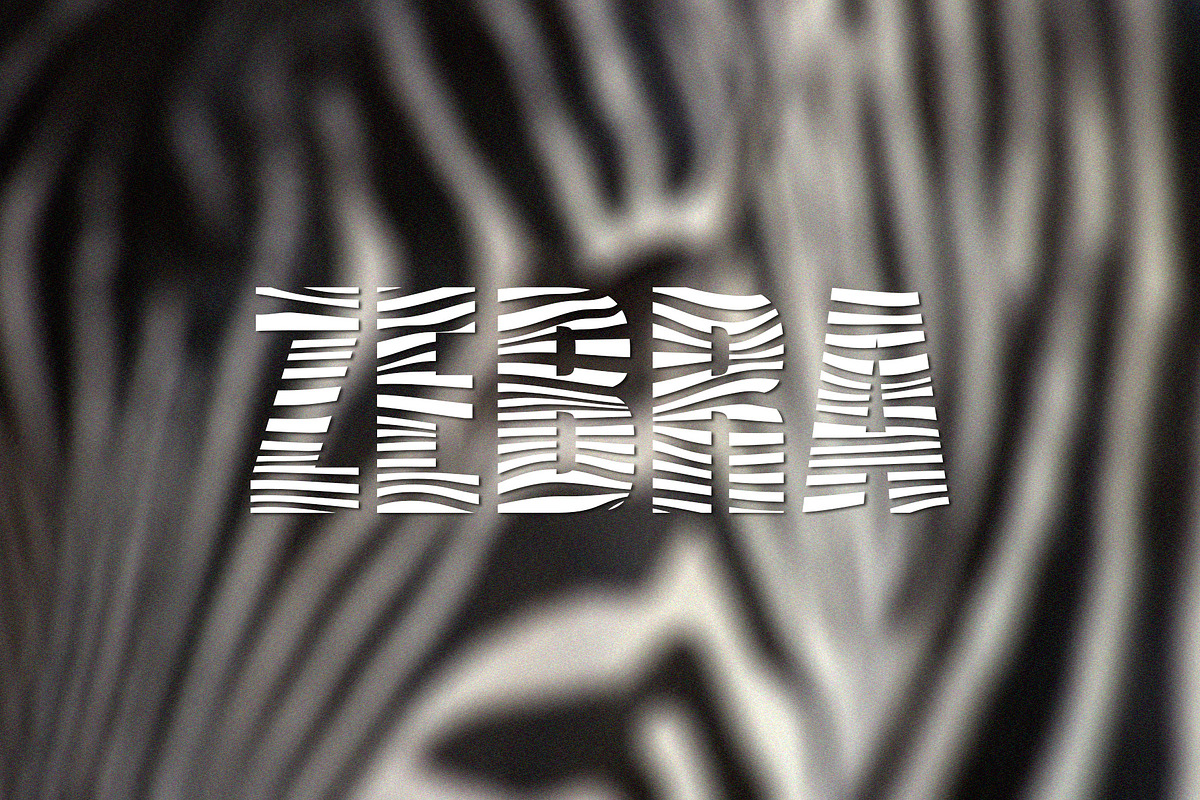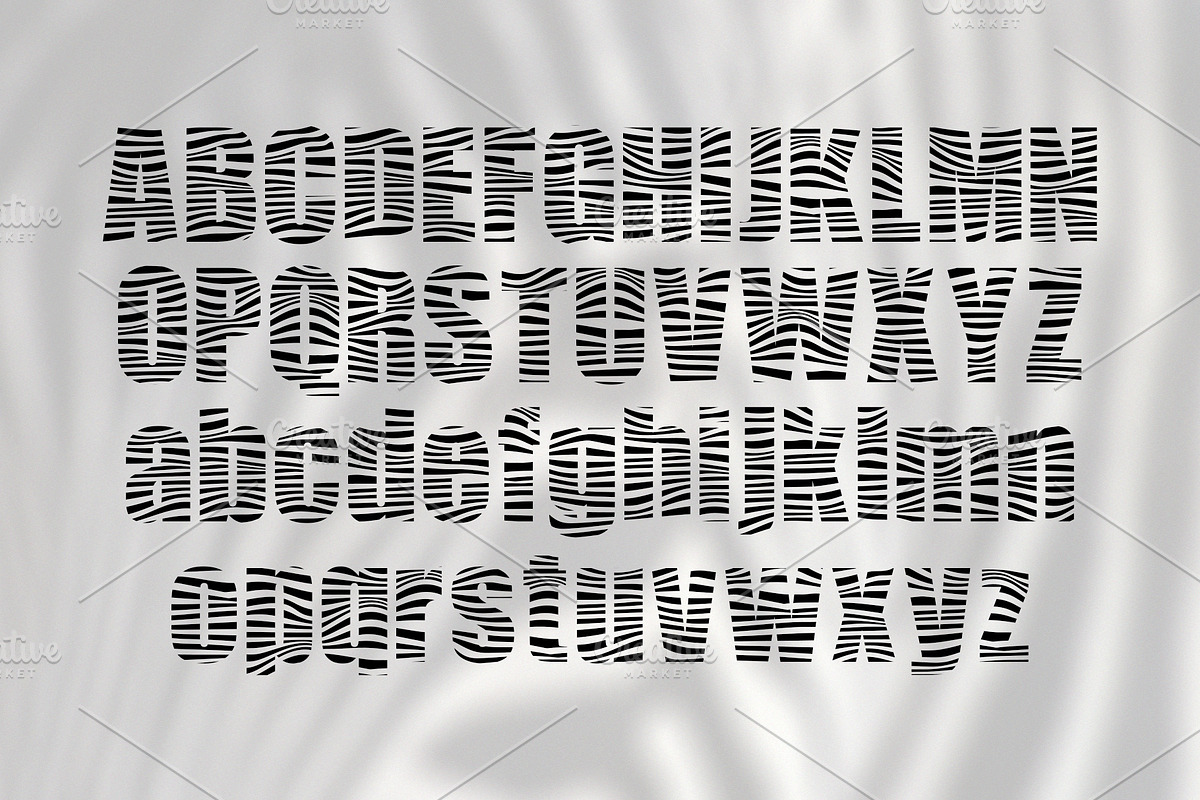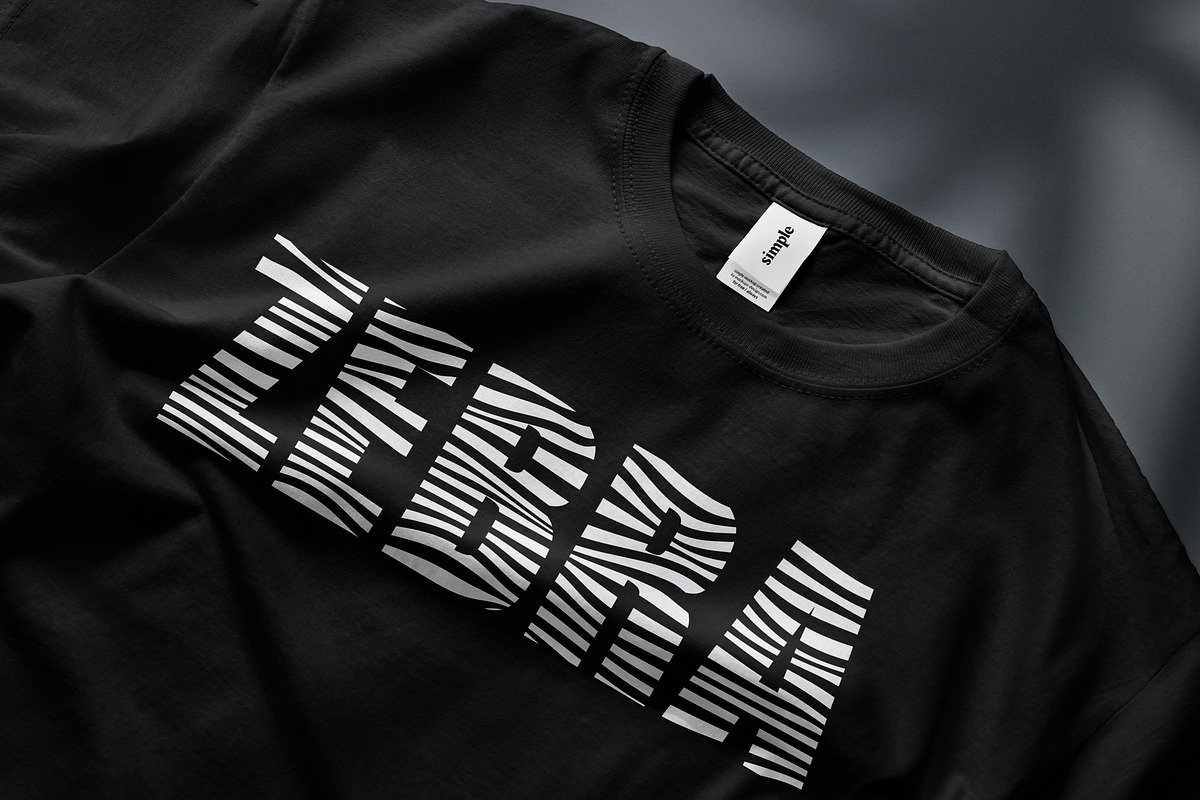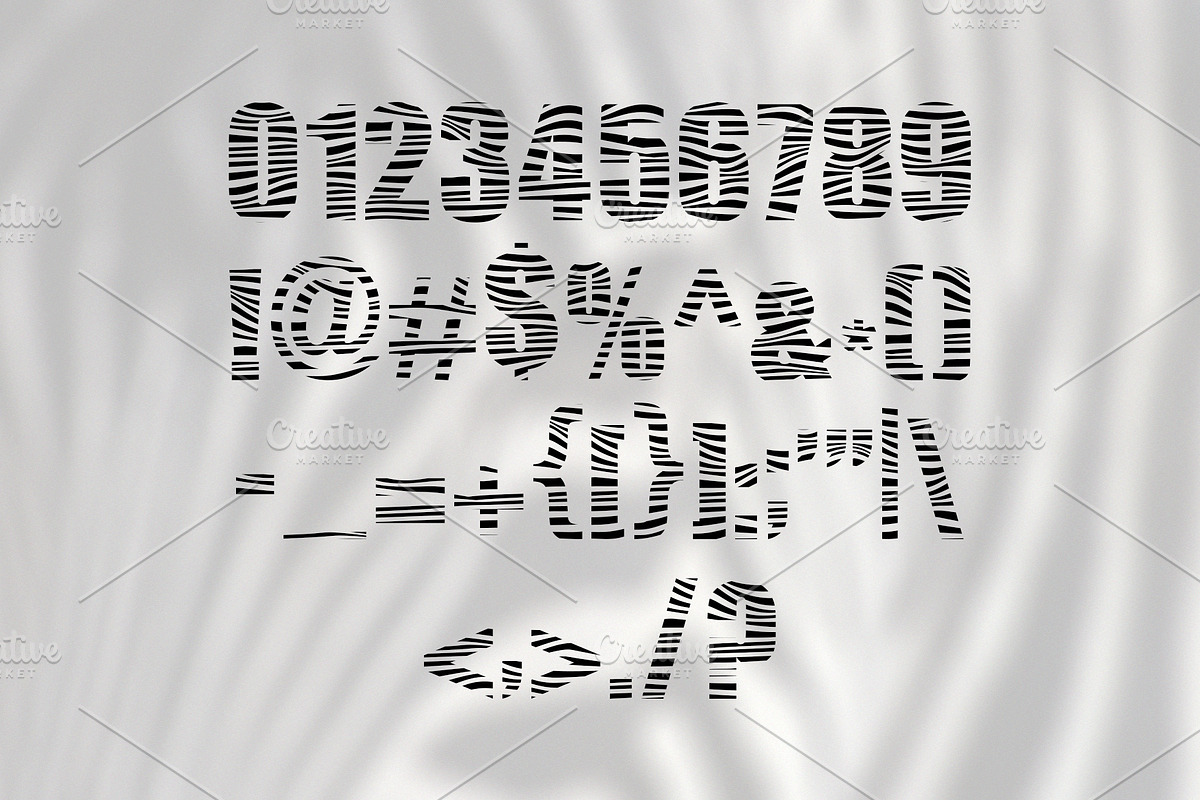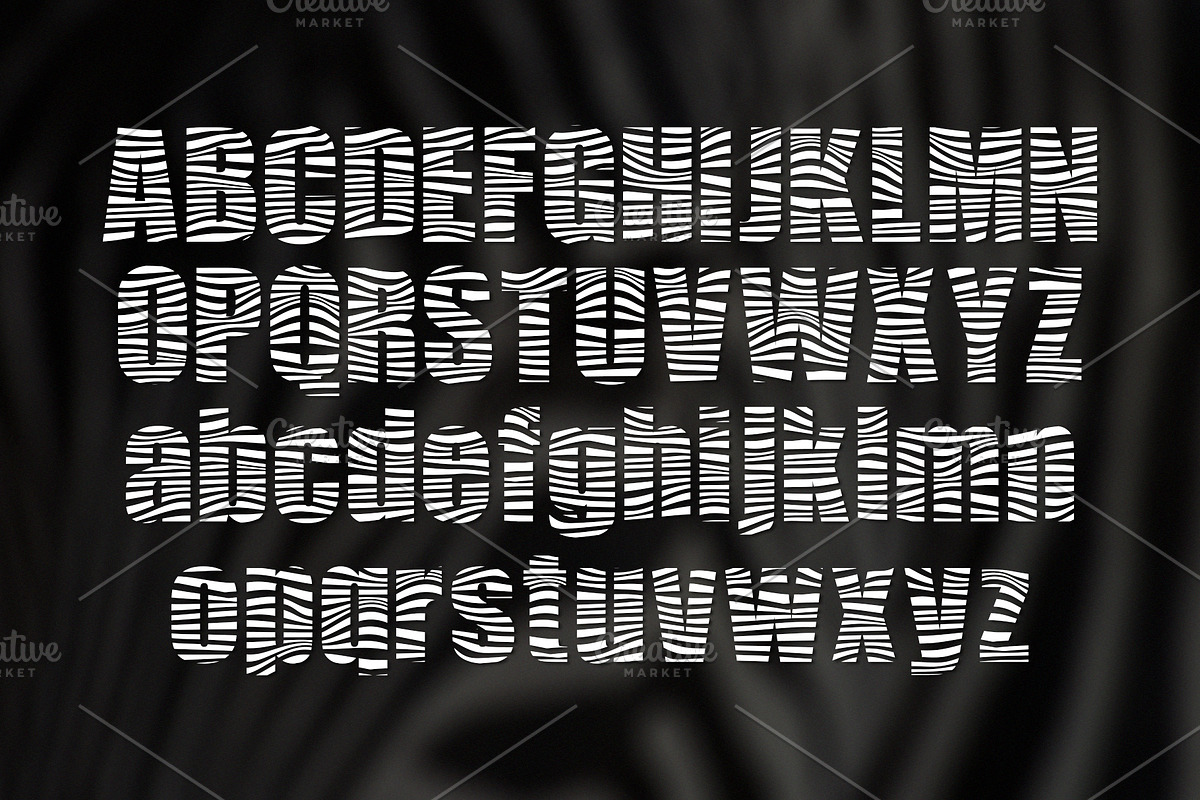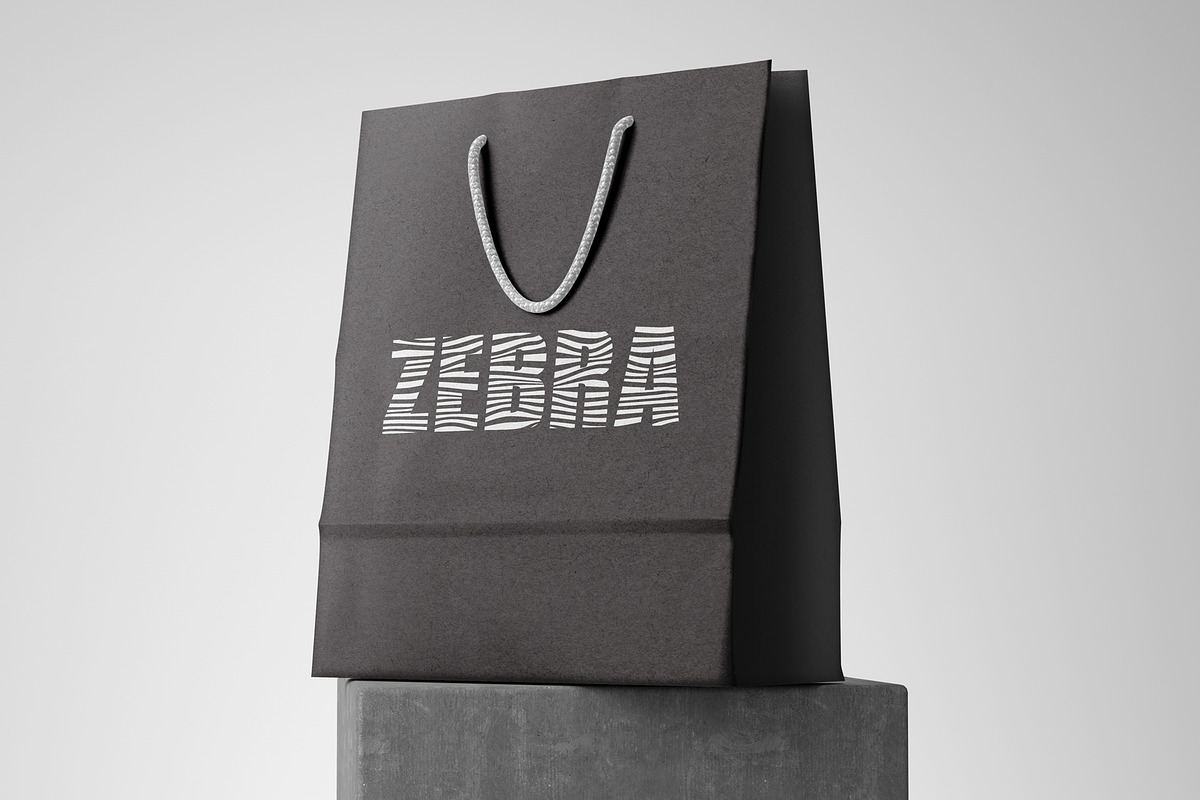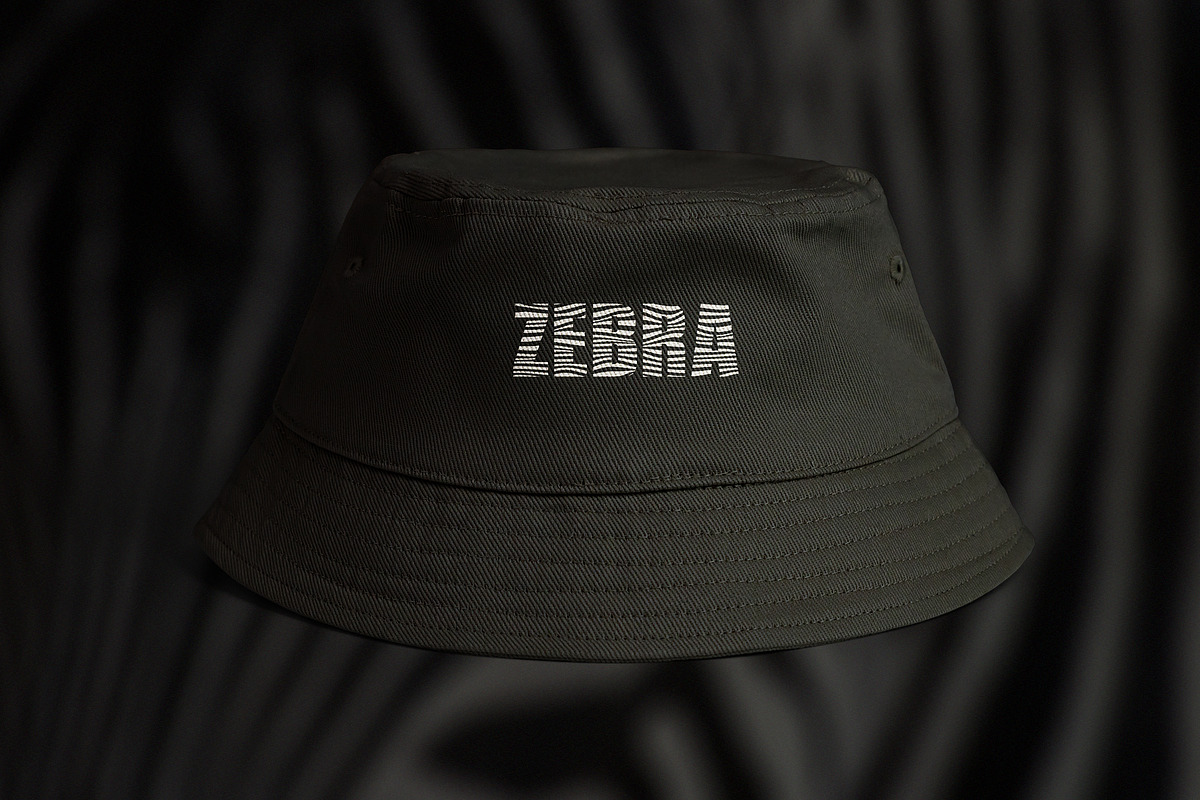
Zebra Sans Serif
Zebra is a bold display font with wavy stripes cutting through every letter, inspired by classic zebra print. The thick letterforms stay strong and readable, while the stripes give your text an eye-catching, animal-print texture that stands out instantly.
• T-shirts, merch, and streetwear graphics
• Posters, album covers, and magazine headlines
• Logos, branding, and packaging
• Social media posts and bold titles